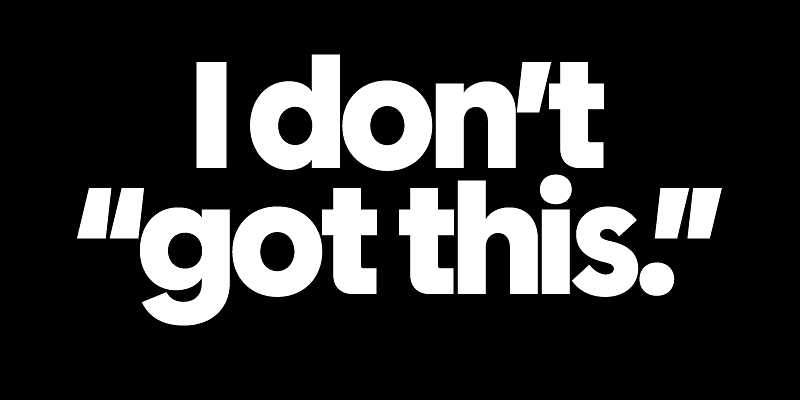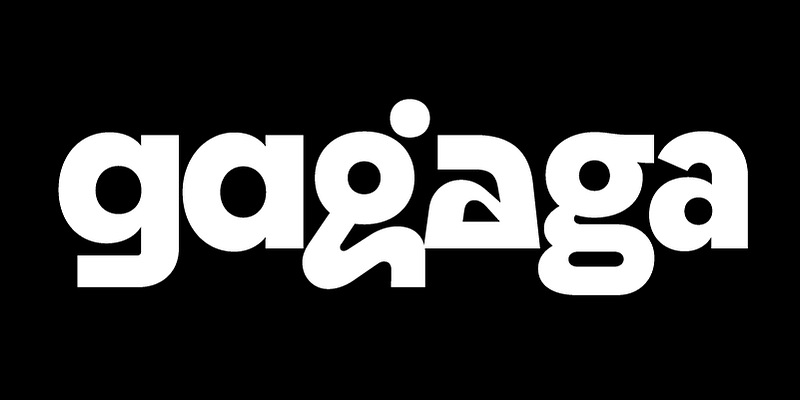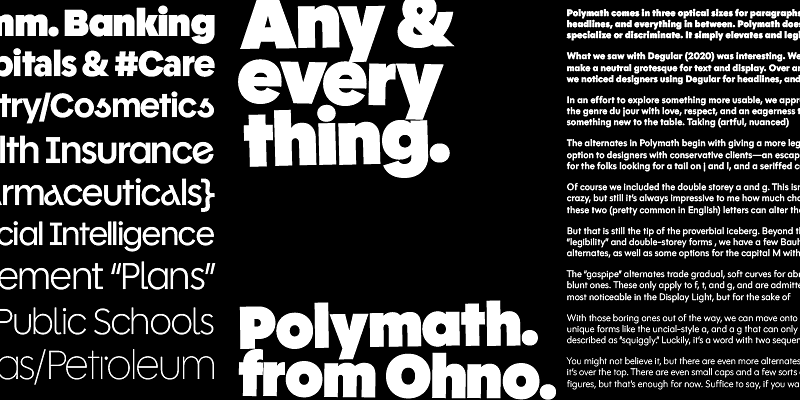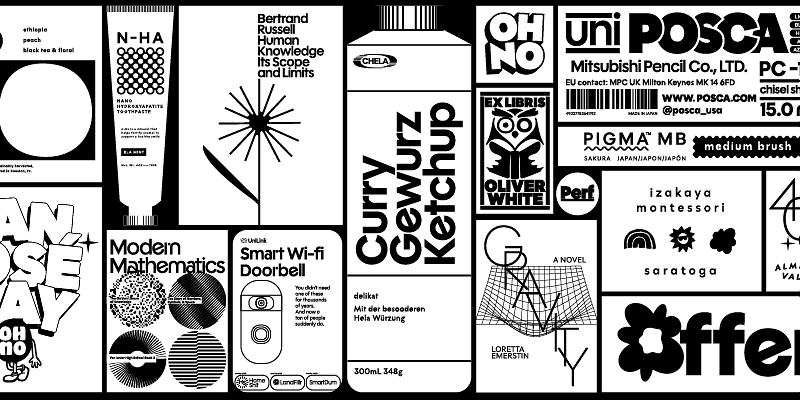
OH no Type Co.
We don’t make fonts to make money, we make money to make more fonts. We emphasize organic over geometric, lively over perfect, and good spacing above all else. Ohno is serious about having fun.